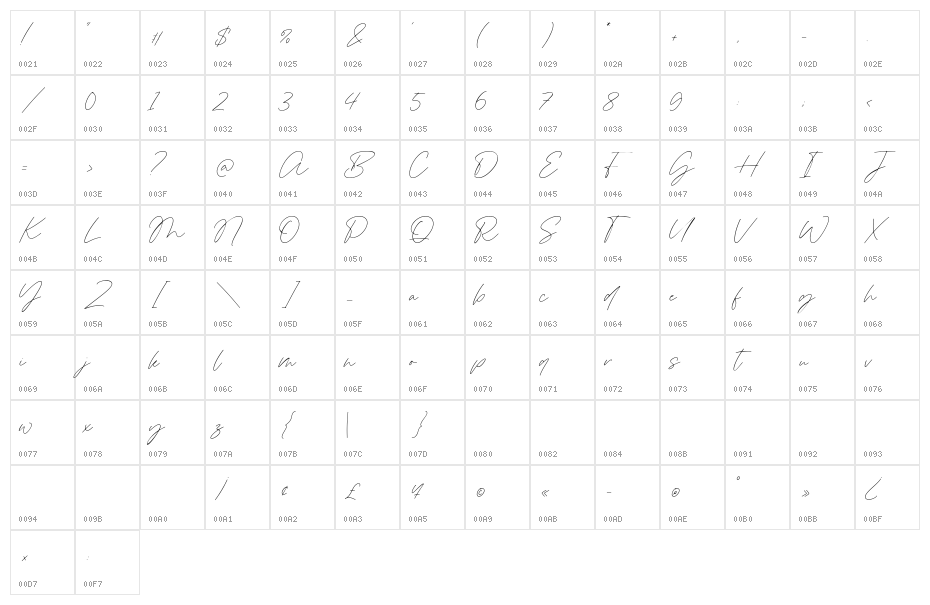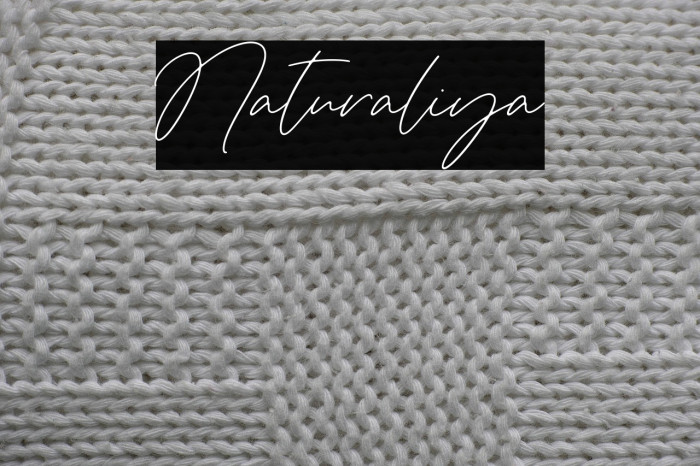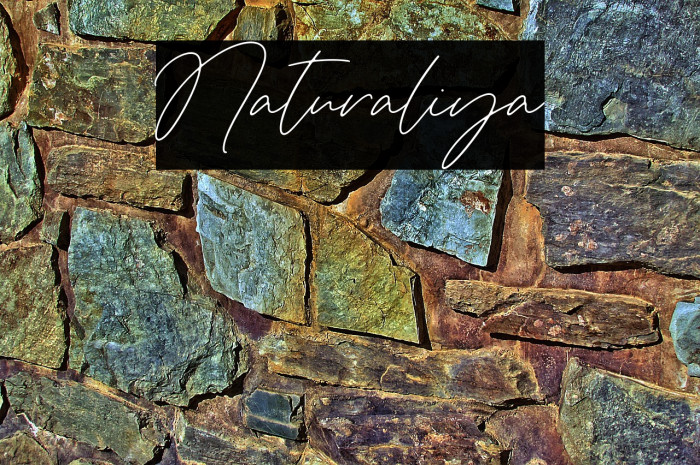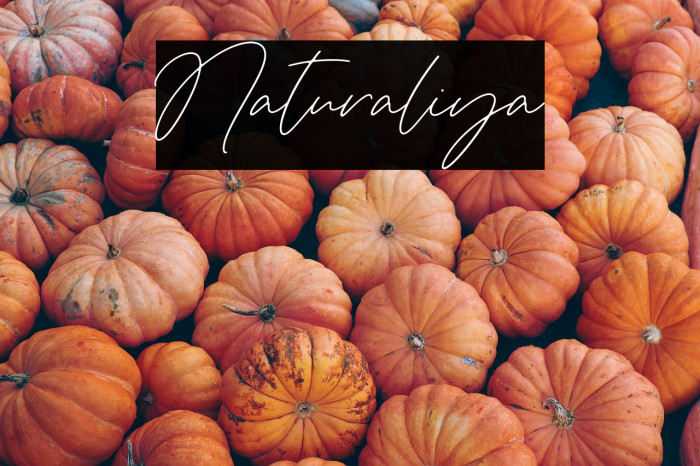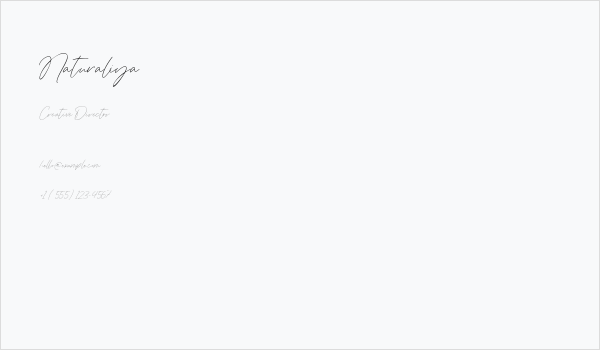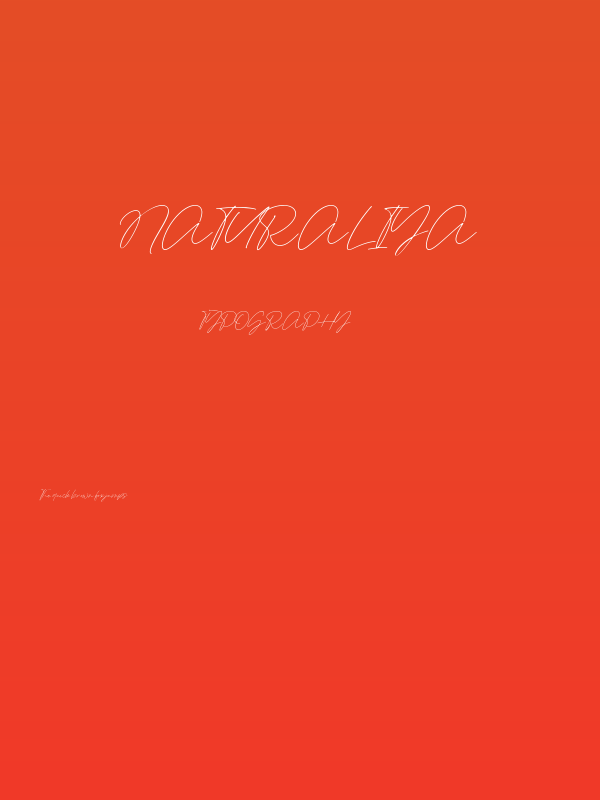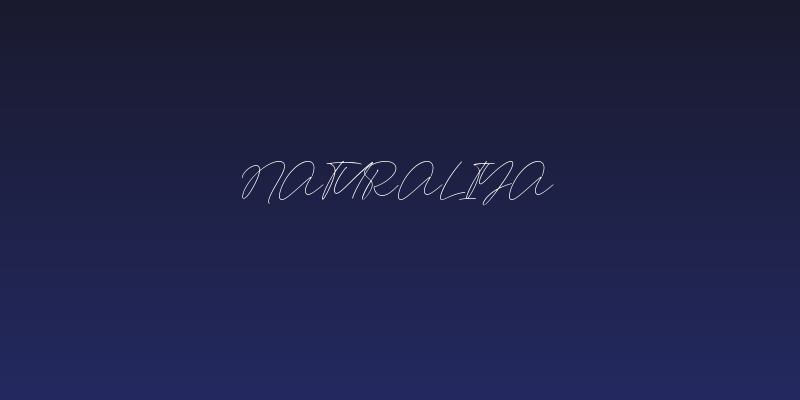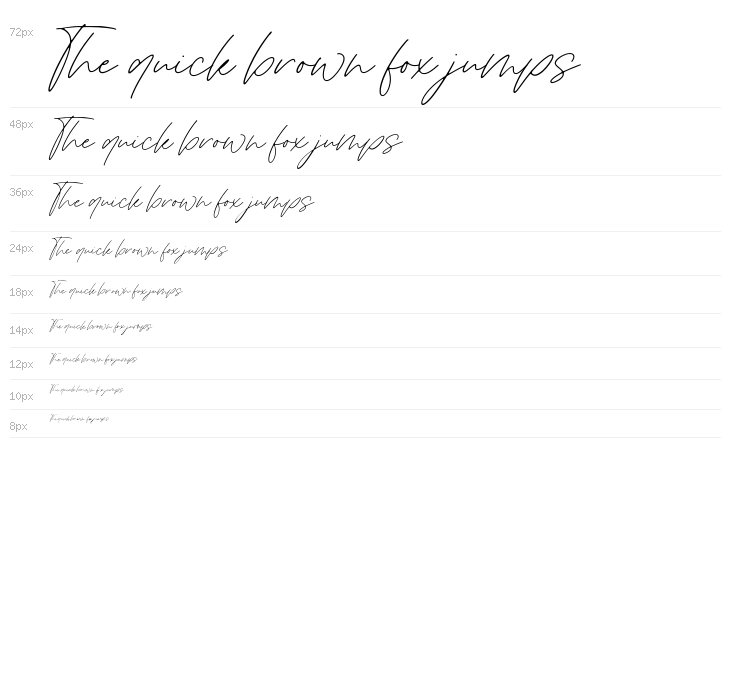
Naturaliya Font
Naturaliya Description
A flowing, cursive script font with a natural, handwritten style. The letters are connected, giving it an elegant and personal touch.
| Overall Style | Elegant, Handwritten |
| Use Case | Logos, Invitations, Personal notes |
| Proposed Projects | Invitations, greeting cards, personal branding. |